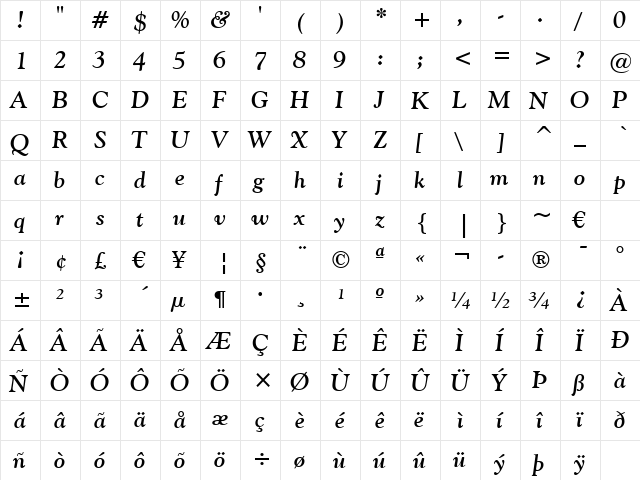
GoudyOlSt BT Bold Italic Font Preview
Design Context for GoudyOlSt BT Typeface
GoudyOlSt BT takes a measured approach to typography — its balanced proportions and neutral character make it a reliable workhorse for both digital and print work. The dynamic lean of this cut emphasises speed and emphasis in any layout. Its bold stroke weight gives it real presence on the page.